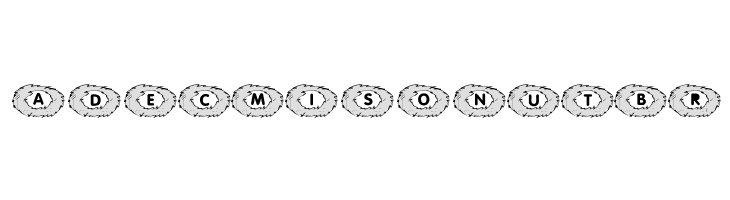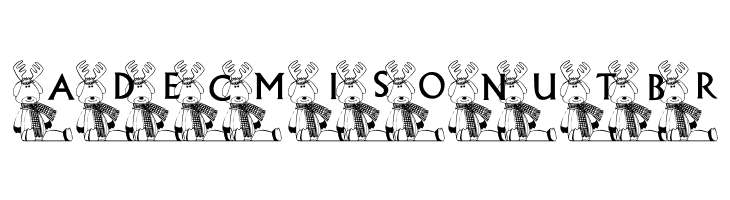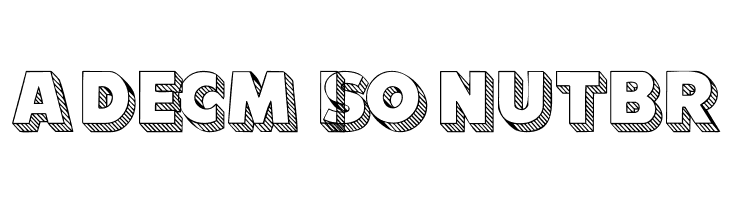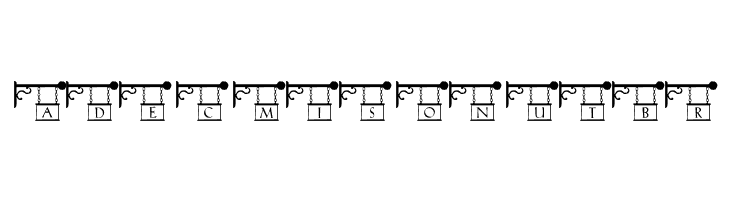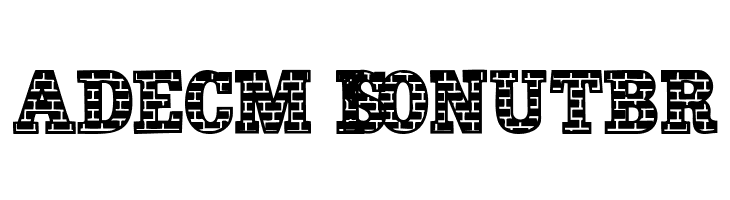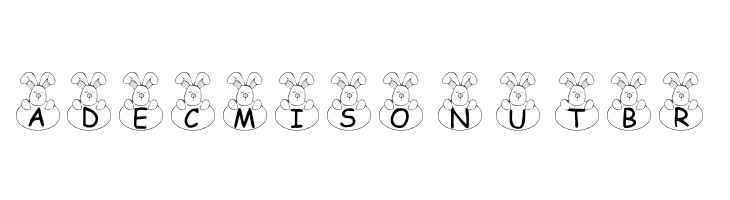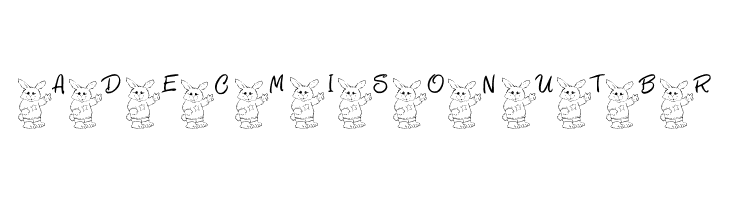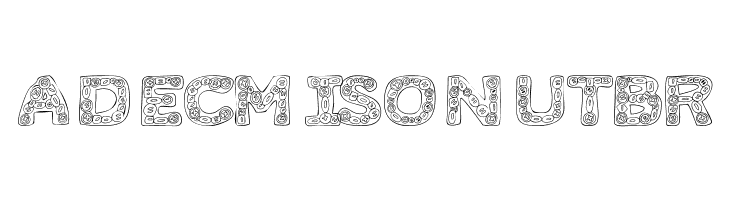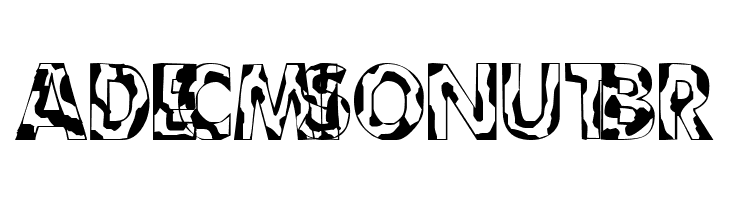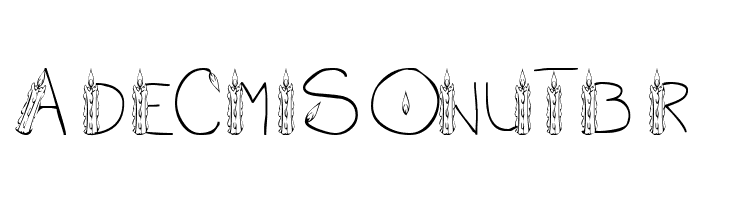
A decorative font with uppercase letters and numbers in a bird's nest style.
A playful, decorative font featuring cartoon reindeer alongside each letter.
Bold, 3D block letters with shadow and hatching, offering a playful and decorative style.
A decorative font with characters on 3D books, ideal for fantasy themes.
A decorative, vintage-style font with framed characters and ornate details.
A bold, decorative font with a unique brick pattern filling each character.
A playful font with letters inside cartoon bunny characters, perfect for fun and whimsical designs.
A playful font with cartoon bunnies accompanying each character.
A playful, button-patterned decorative font with bold, rounded characters.
A bold, camouflage-patterned font with a playful and adventurous style.
A whimsical font styled to resemble candles, complete with wax drips and flames.
A decorative font resembling castle silhouettes with intricate medieval details.
Ornamental Celtic knotwork and symbol dingbats.
A decorative font with Celtic knot designs within bold, rounded characters.
A decorative font with characters inside chalice silhouettes.
A bold, geometric font with a striking checkered pattern.
A bold, cheetah print-inspired decorative font with medium contrast.
A bold, chiseled font with a textured, hand-drawn effect.
A festive font with characters inside bell-shaped outlines, perfect for holiday themes.
A bold, chunky font with a playful and dynamic style.
A circuit-inspired font with intricate, tech-themed detailing.
A whimsical font with characters enclosed in heart shapes, perfect for romantic or playful designs.
A whimsical font with characters encased in clown faces, ideal for playful designs.
A playful font featuring bold letters with clown faces, perfect for fun projects.
Decorative cartoon dinosaur illustration font.
A playful, confetti-inspired decorative font with intricate geometric shapes.